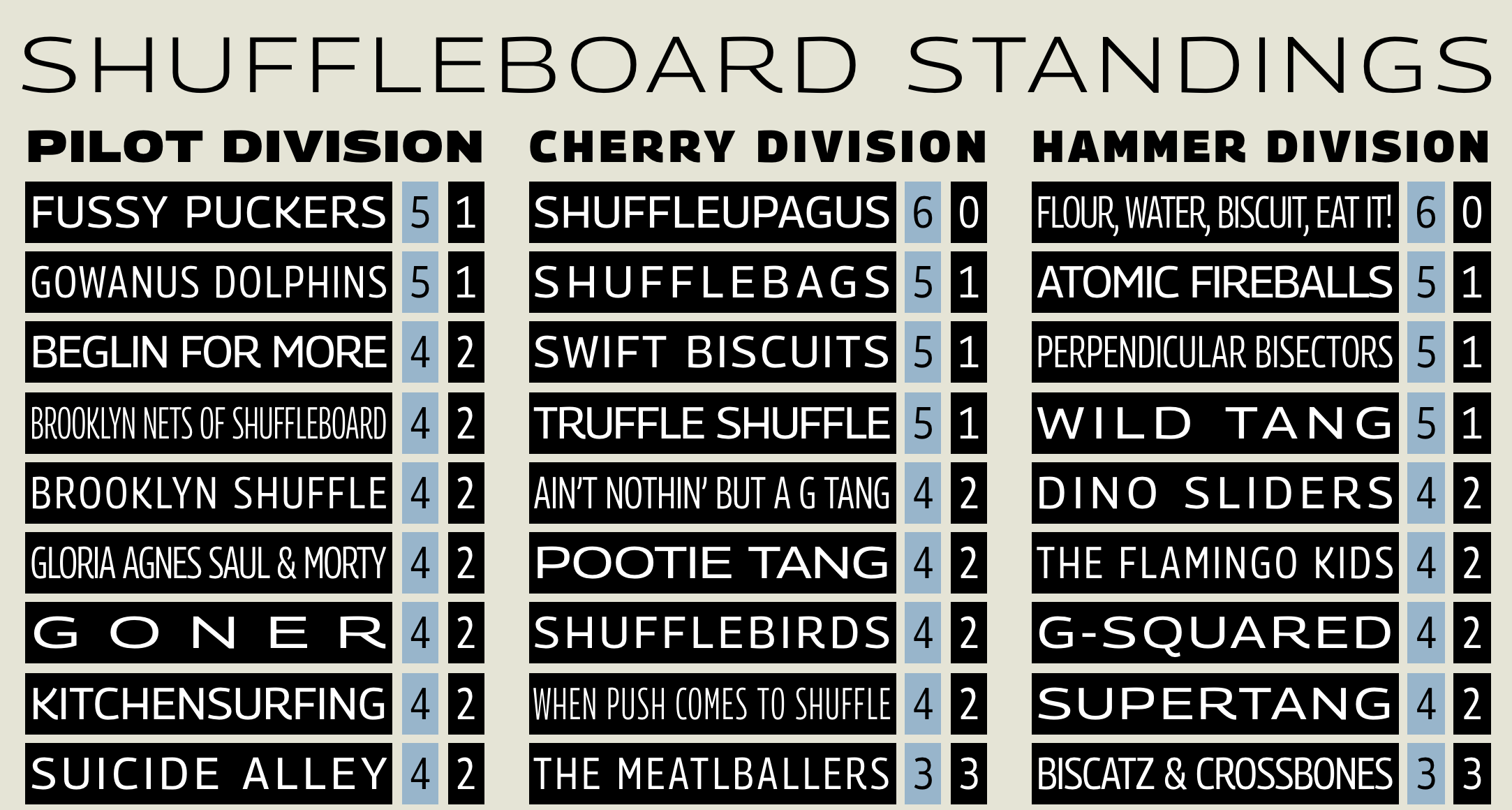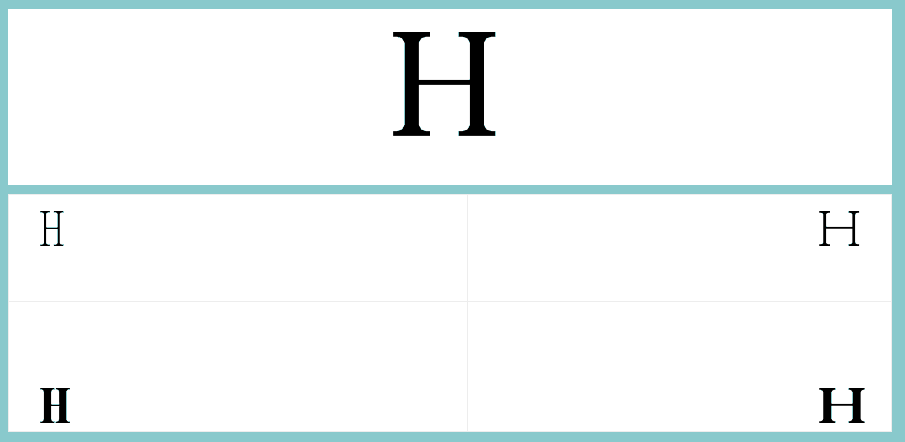
A New Responsive Font Format for the Web
Nick Sherman gave a fascinating talk at Ampersand earlier this month which was based on an article he wrote called Variable Fonts for Responsive Design. In both the talk and the essay he suggests that we need a new font format to solve complex responsive design problems:
…the glyph shapes in modern fonts are restricted to a single, static configuration. Any variation in weight, width, stroke contrast, etc.—no matter how subtle—requires separate font files. This concept may not seem so bad in the realm of print design, where layouts are also static. On the web, though, this limitation is what I refer to as the “glass floor” of responsive typography: while higher-level typographic variables like margins, line spacing, and font size can adjust dynamically to each reader’s viewing environment, that flexibility disappears for lower-level variables that are defined within the font. Each glyph is like an ice cube floating in a sea of otherwise fluid design.
Manipulating a character in this way is commonly referred to as interpolation in the type design community: designers pick multiple poles, such as thick or thin, condensed or extended characters, and let a clever algorithm create a value in between. The example below, from Andrew Johnson’s SVG interpolation experiment, explains this process well:
As Nick mentioned, interpolating from light to bold, or from thin to wide letterforms is unfortunately impossible with the current font formats that we have for the web. However, he’s not the only designer calling for improvements to be made here, as Andrew Johnson has made similar requests for a responsive font format:
…today’s webfonts tie our responsive sites and applications to inflexible type that doesn’t scale. As a result, our users get poor reading experiences and longer loading times from additional font weights.
But why would we want responsive features like this in a font format anyway? How would that help us solve design problems?
The benefits of a variable font format
This new format would offer minute typographic control for designers, particularly for when a regular weight looks too thin and a bold weight looks too thick. Instead, we could pick a value in between thin and bold and the font would interpolate between them — in other words, designers would be able to make a substantial improvement to legibility.
Also, we could finally make layouts where words or sentences take up the whole space of its parent container, just like in the demo called Font to Width:
This technique might sound similar to FitText or using viewport units to set responsive text, but there is a clear distinction to be made that the type designer Erik van Blokland outlined:
Width variations will have an immediate application in fitting typography to the target rectangle. Words need to be able to respond to the page geometry.
So in order to best respond to the “page geometry” we need more control over the fonts that we apply to our designs and the width of each glyph is just as important as being able to set a responsive value for the font-size.
Another reason for implementing a new variable font format might be performance, as we’d only request the download of a single file, rather than the multiple fonts we need today when working with systems that require large type families that contain Extra-Light, Light, Regular, Medium, Semi-Bold, Bold and Black variants.
This idea of a responsive font format isn’t new and there have been multiple attempts in the past of creating something very similar. Adam Twardoch, the Director of Products at Fontlab, called for a resurgence of these ideas back in 2013:
In the web context, I think at least one of these variable font models deserves resurrection – because it offers tremendous compression potentials, lends itself well into the “responsive web” paradigm, offers new possibilities for text layout on the web and, above all, can be implemented much more easily on the web than it ever could be on desktop platforms.
Nick continued to summarise the benefits like this:
A variable font would mean less bandwidth, fewer round-trips to the server, faster load times, and decidedly more typographic flexibility. It’s a win across the board. (The still-untested variable here is how much time might be taken for additional computational processing.)
However, there are lots of technical considerations to think about when introducing a new font format to the web, so how might we implement these features in our designs?
How this new format might work in CSS
In his talk, Nick suggested a practical example in CSS that I’ve developed a little here with an imaginary property called font-width that lets us set the width of a character just like we can set the font-weight of an element today:
@font-face {
font-family: WebFont;
src: url('webfont.new') format('new format');
}
body {
font-family: WebFont;
font-weight: 450;
font-width: 200;
}
Summing up
I think there’s huge potential for a new variable font format to become a key part of the designer’s tool belt. It would greatly improve the reading experience of general users of the web, too. But that doesn’t mean we can ignore the many problems and hurdles that we have to overcome to get a draft spec agreed upon.